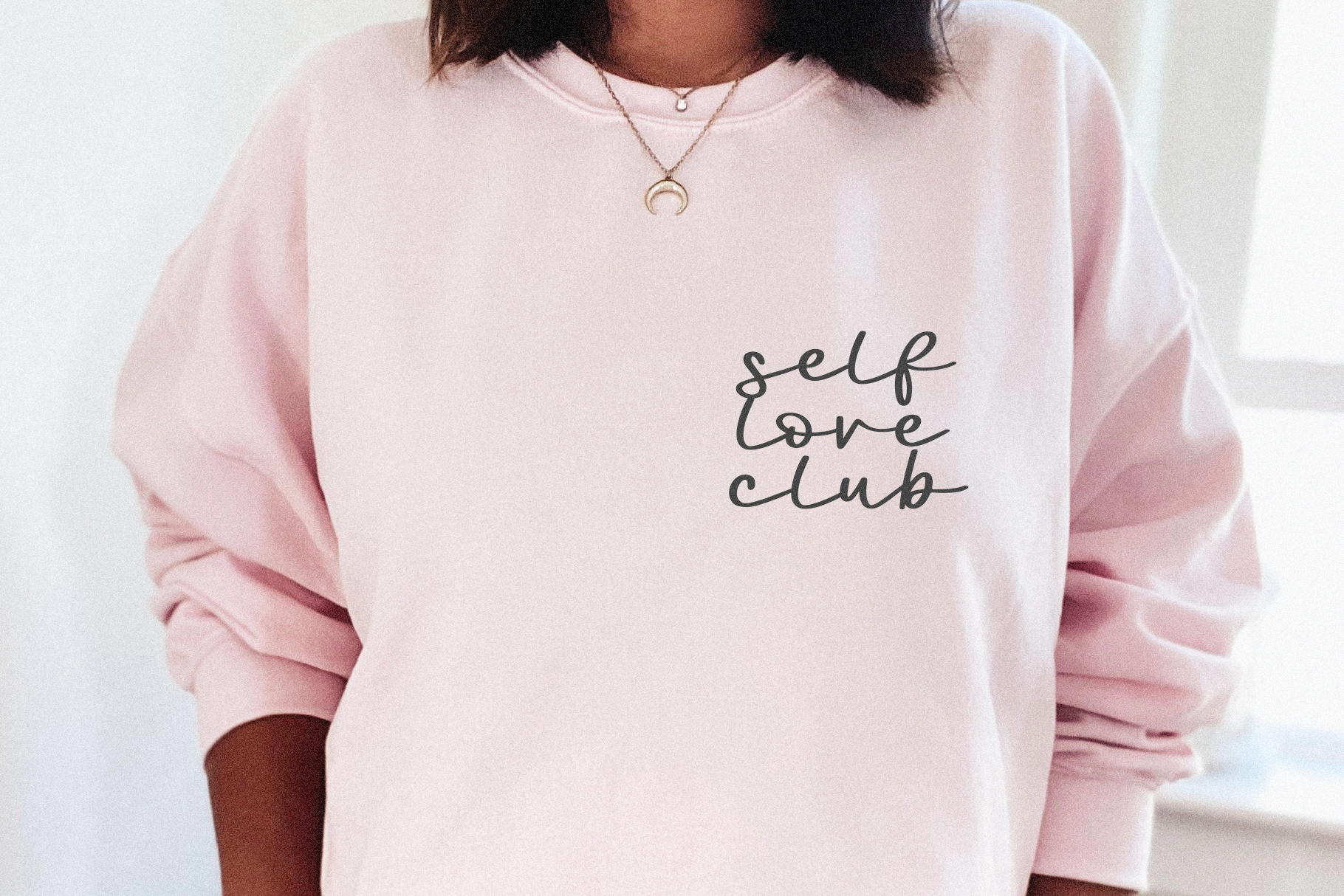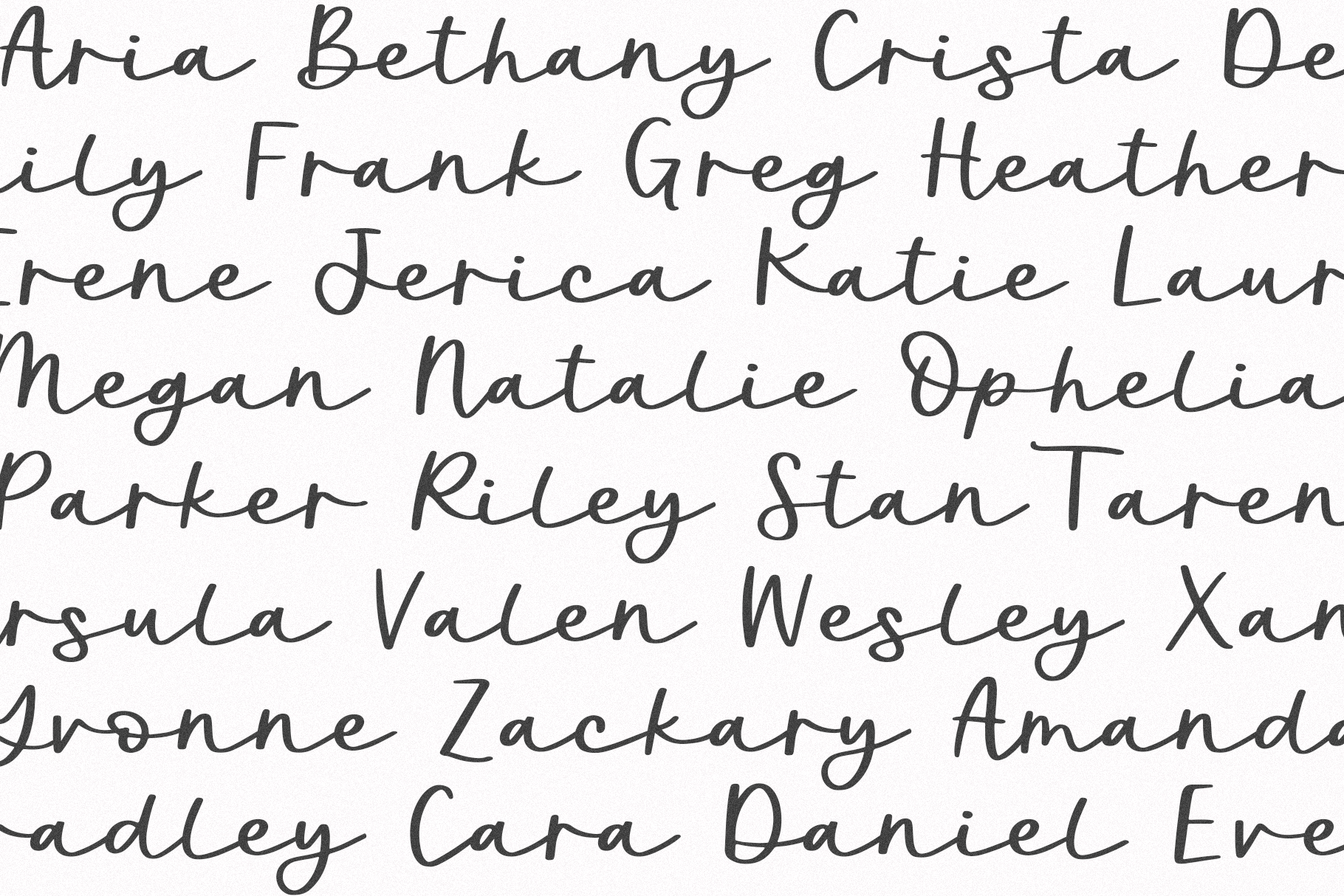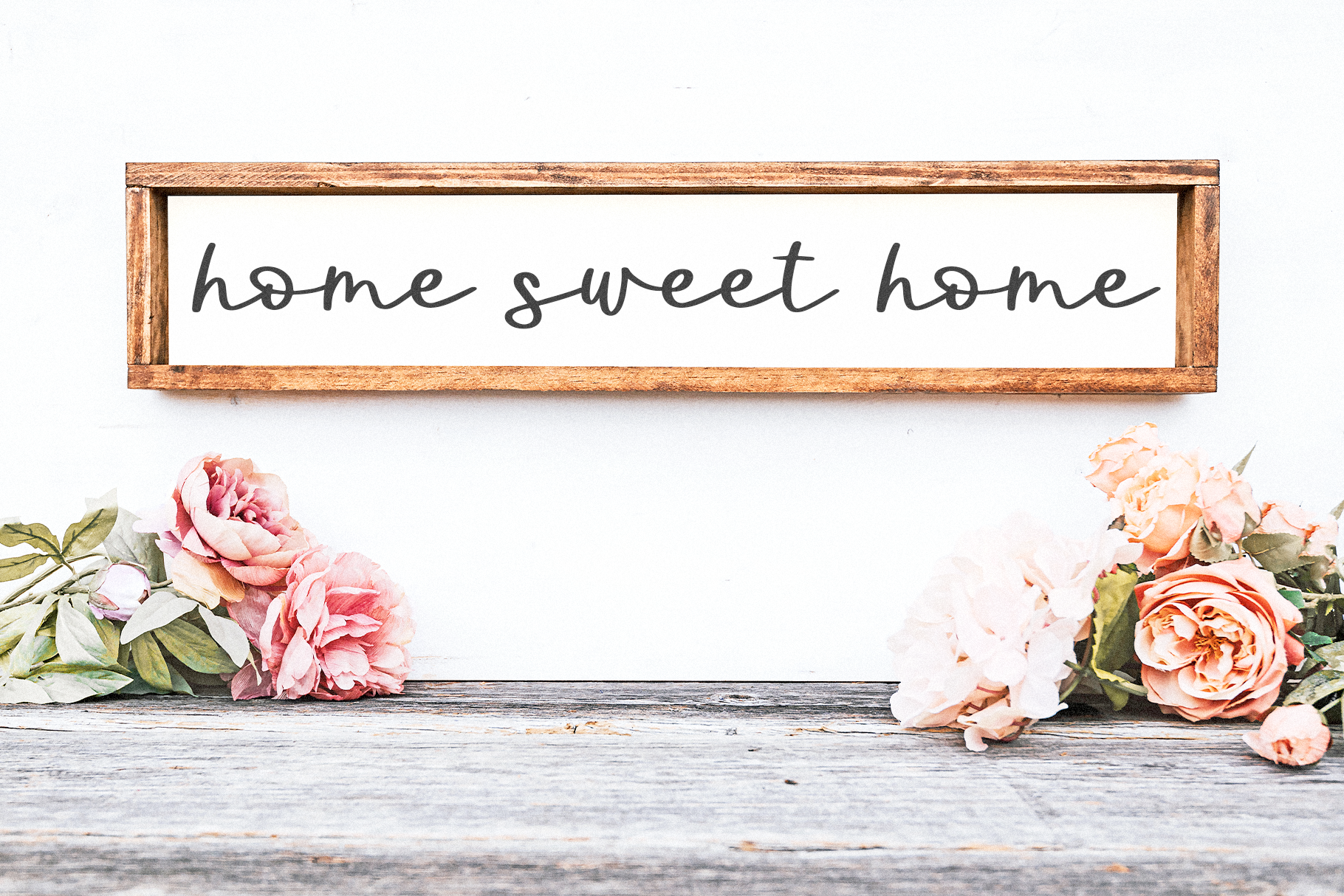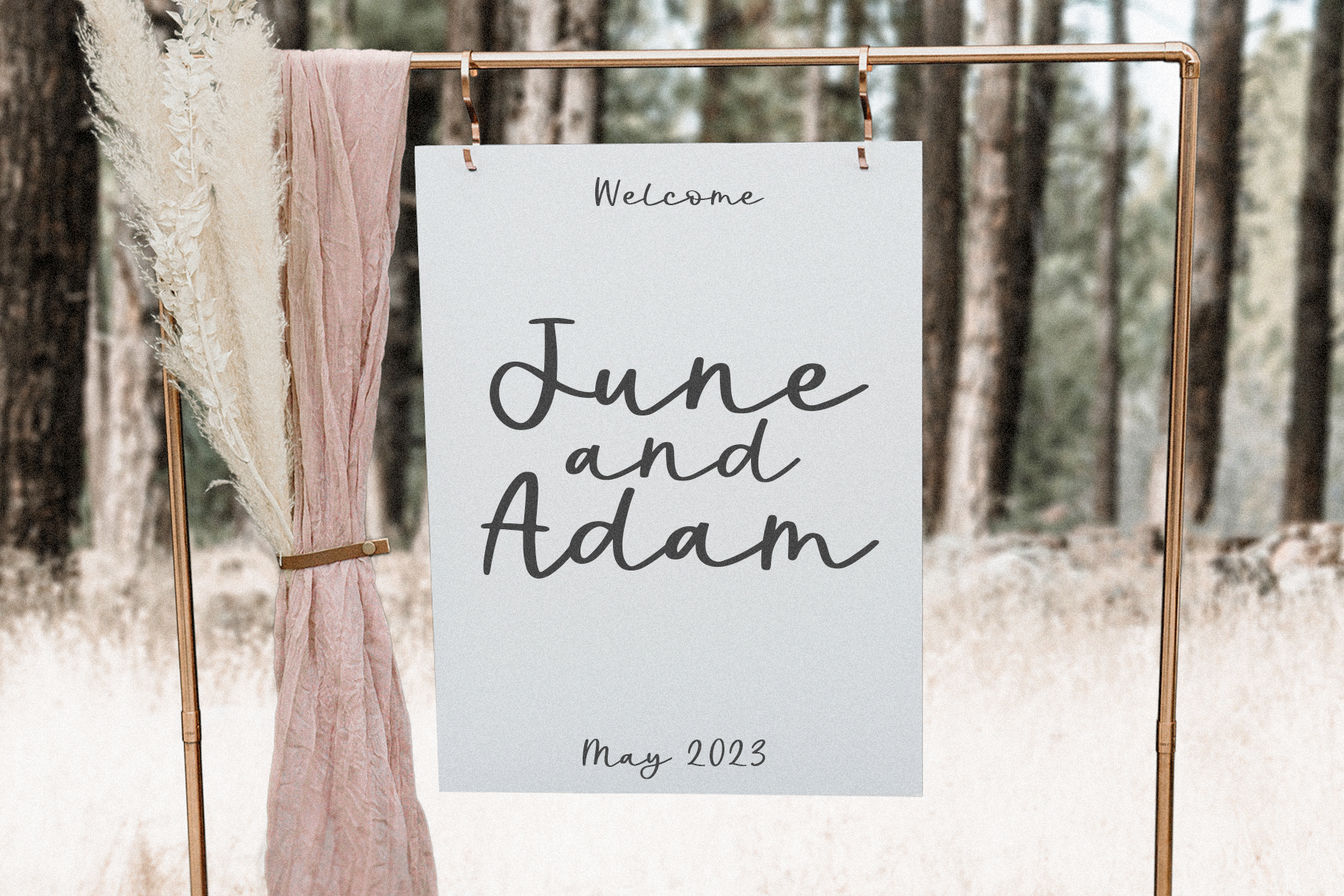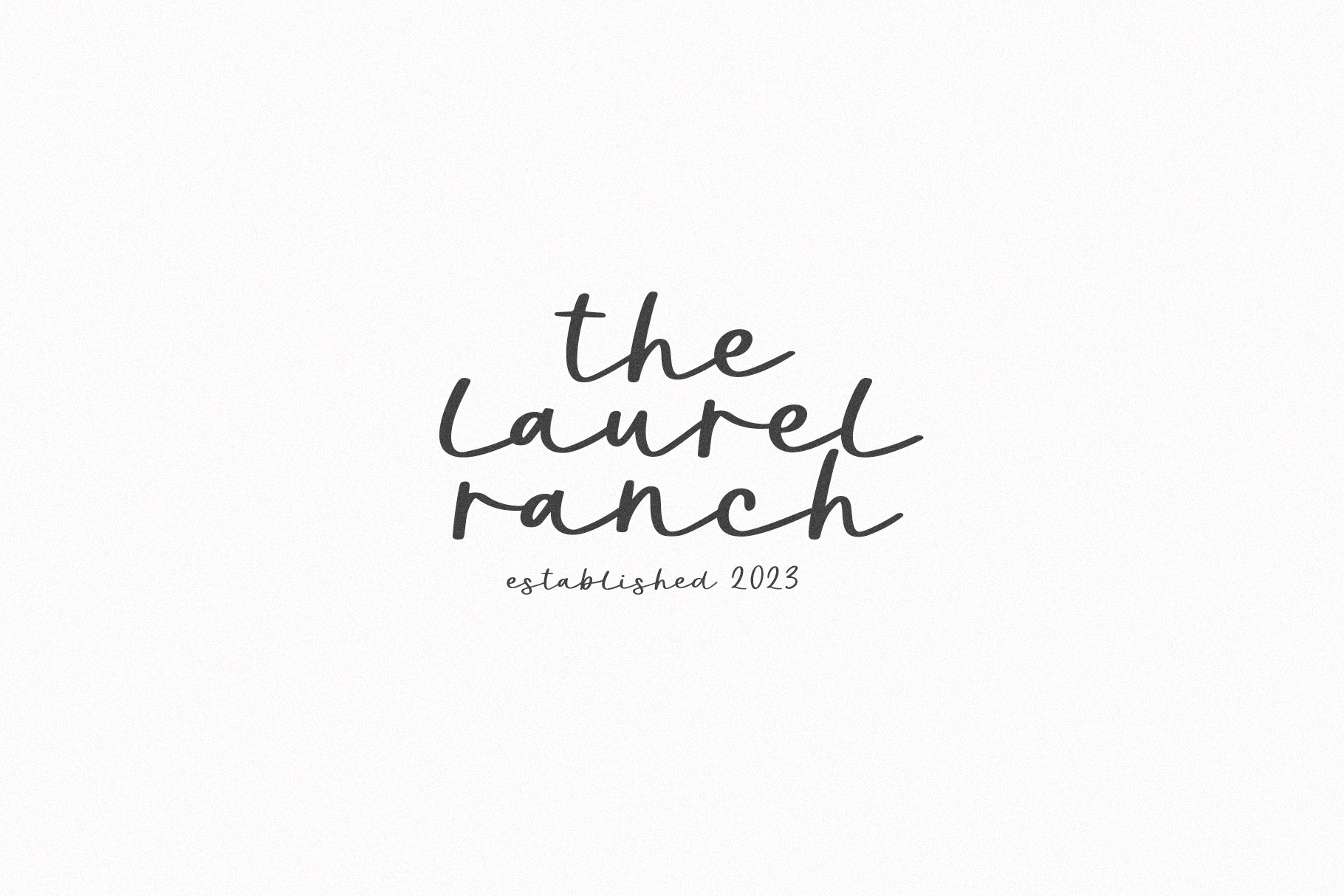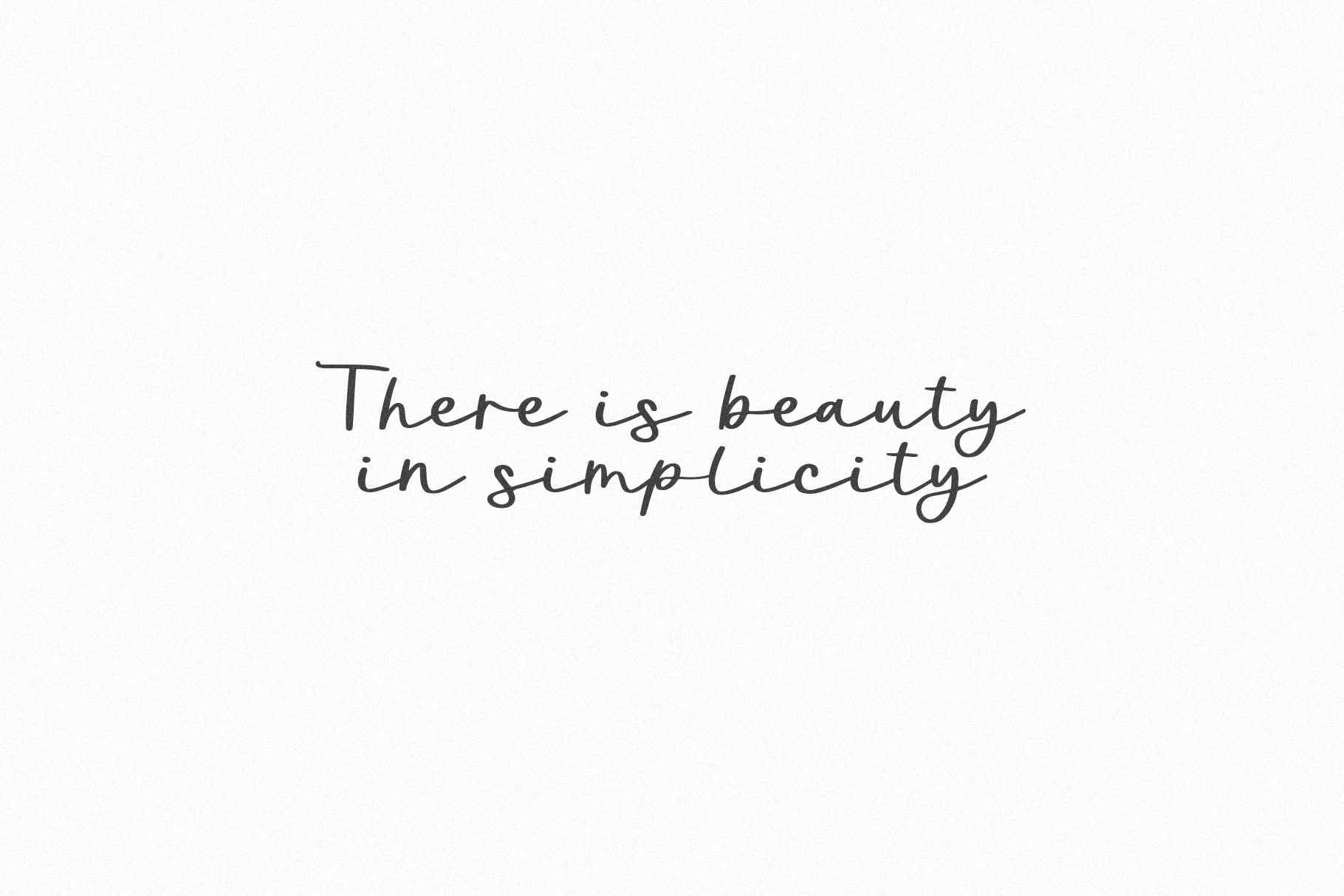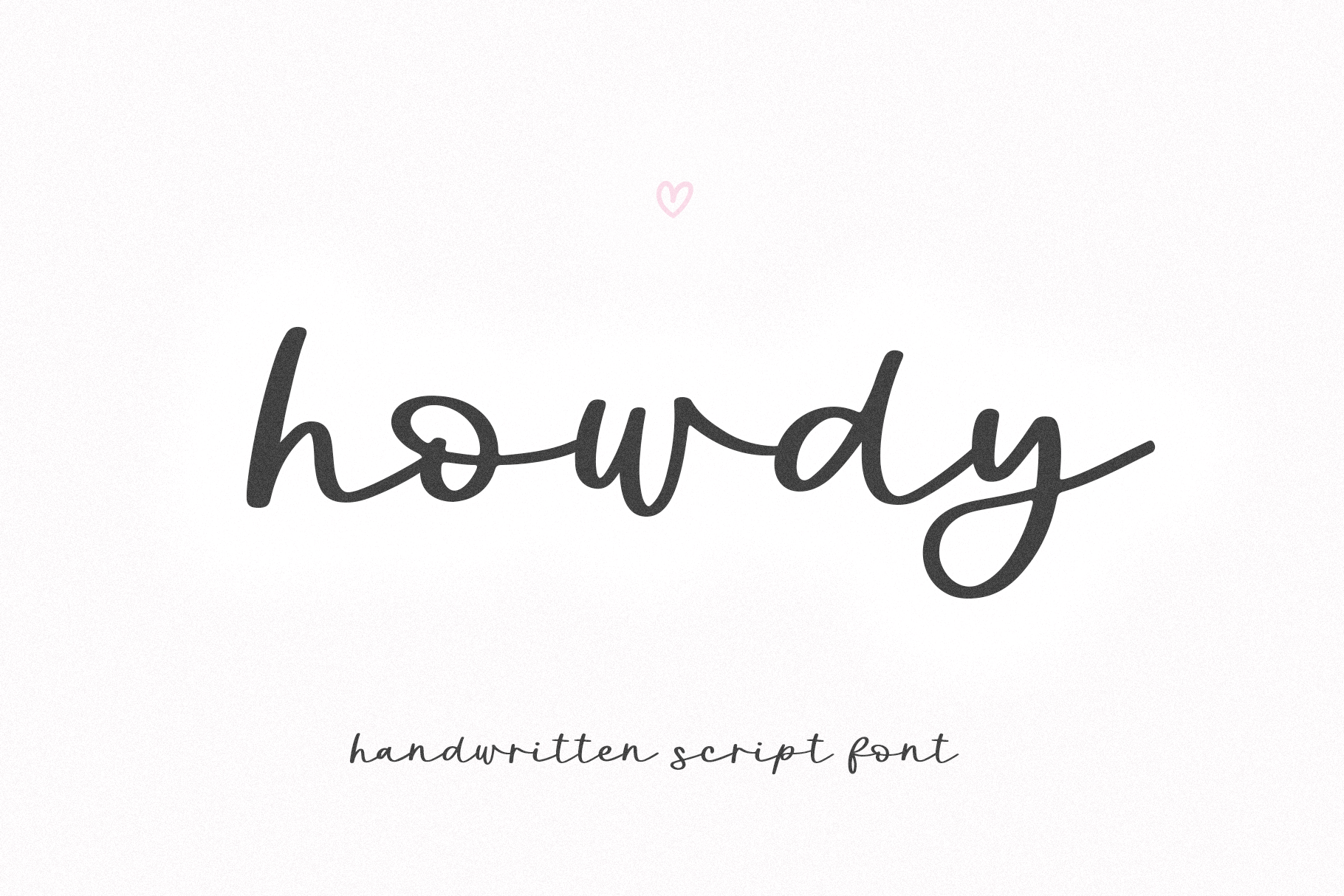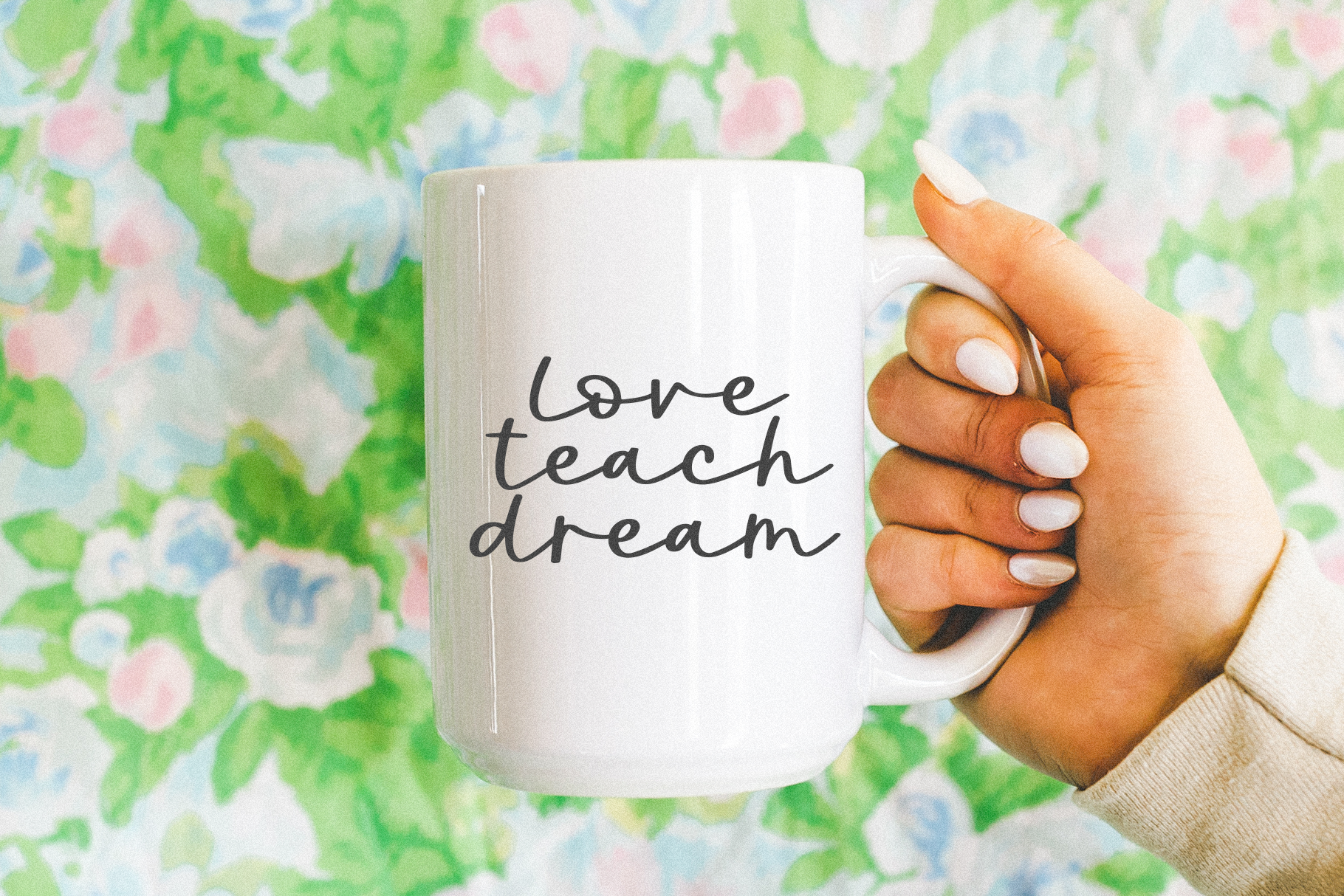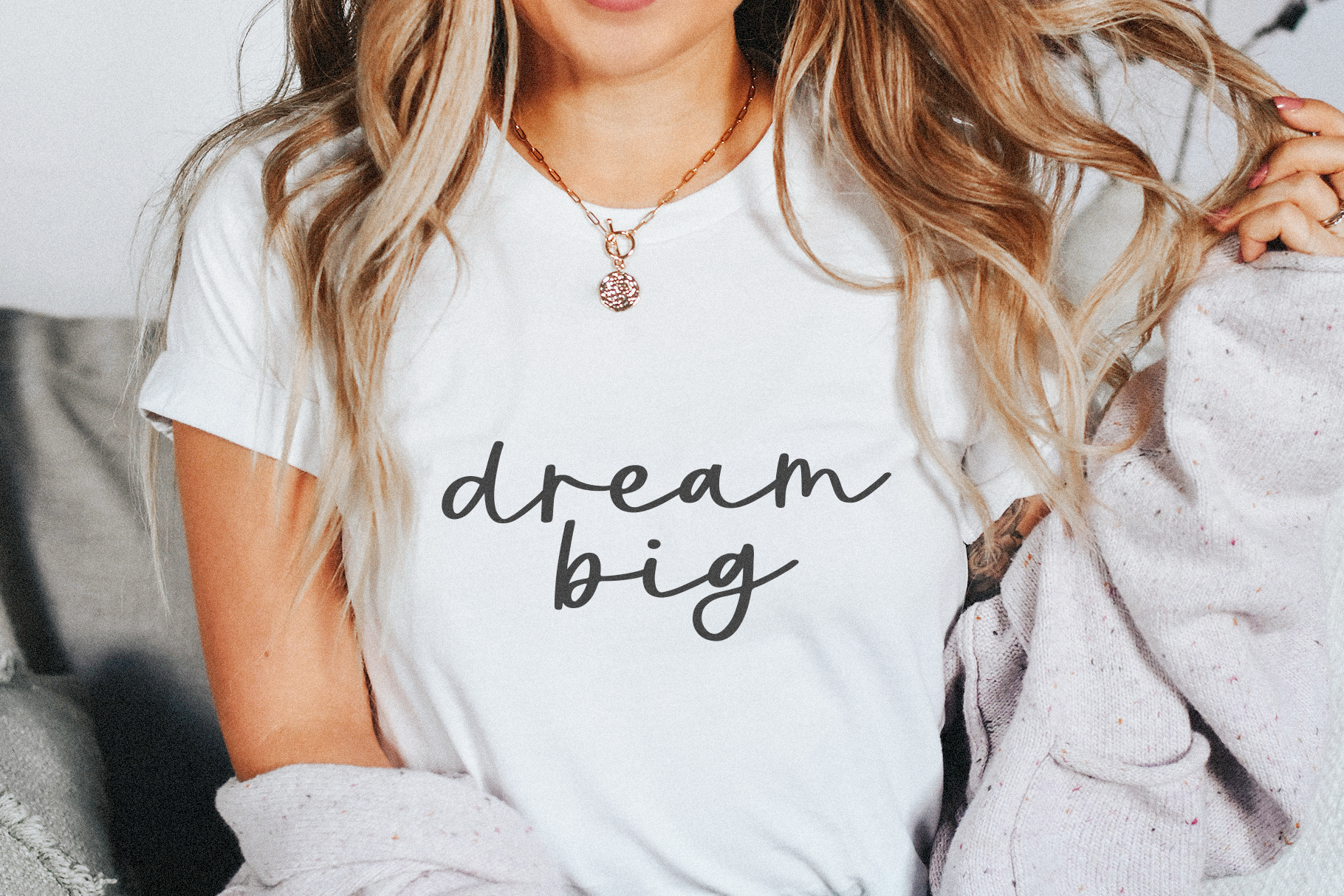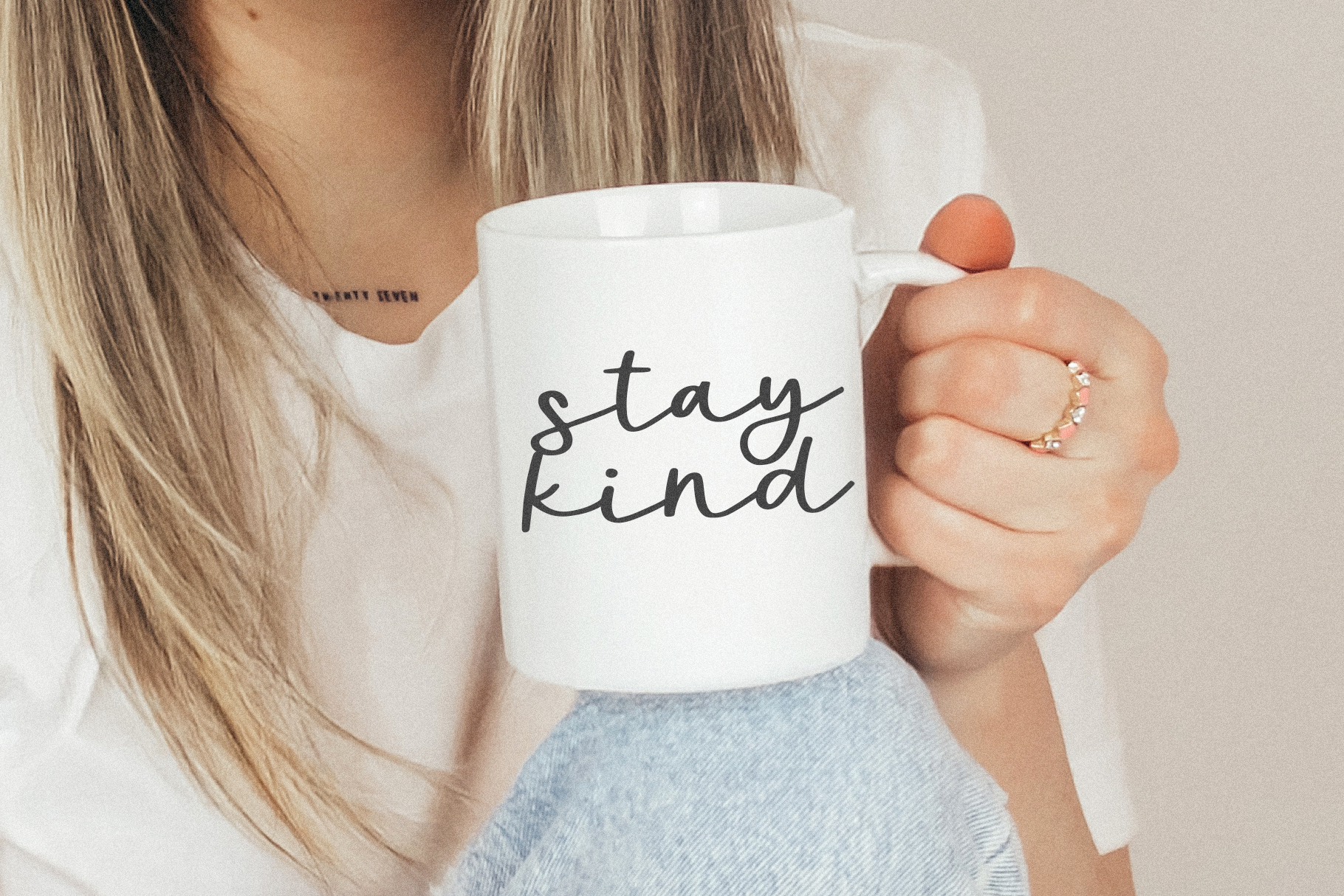
Howdy | Handwritten Script Font by Ka Designs | Creative Market
Howdy is a handwritten script font. This font is perfect for your craft projects, svg files, farmhouse designs, wedding decor, logos, quotes and more! OTF/TTF Thank you! | Howdy | Handwritten Script Font | KA Designs